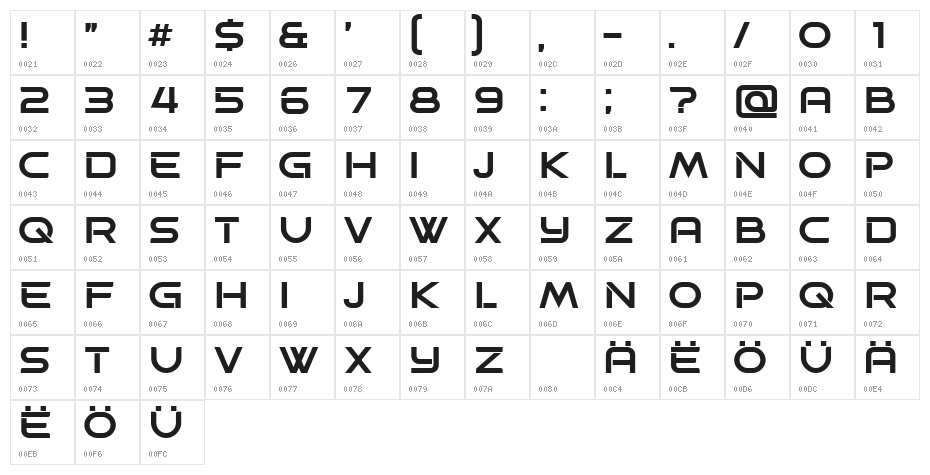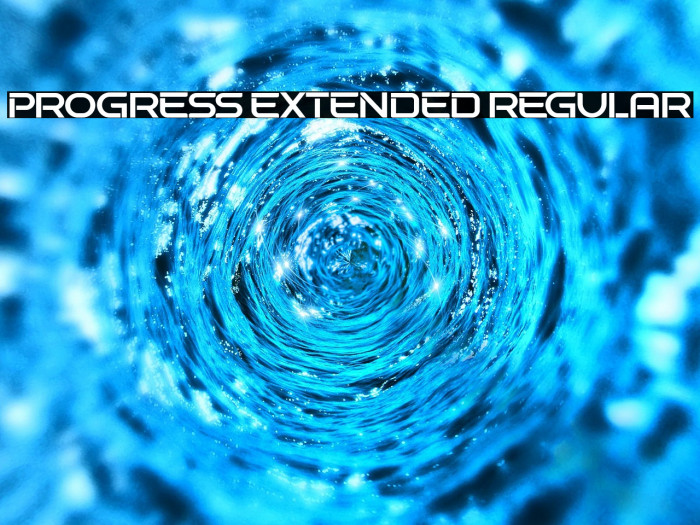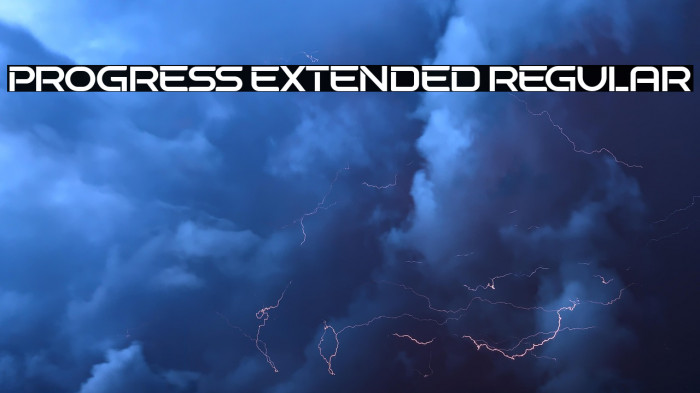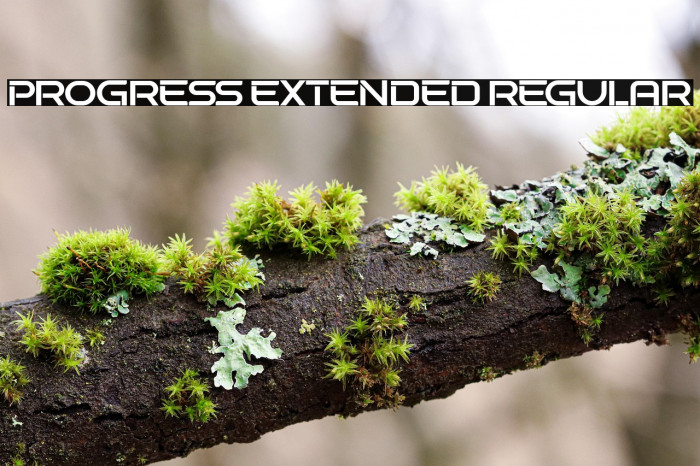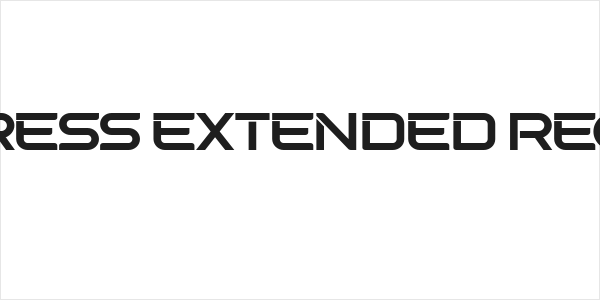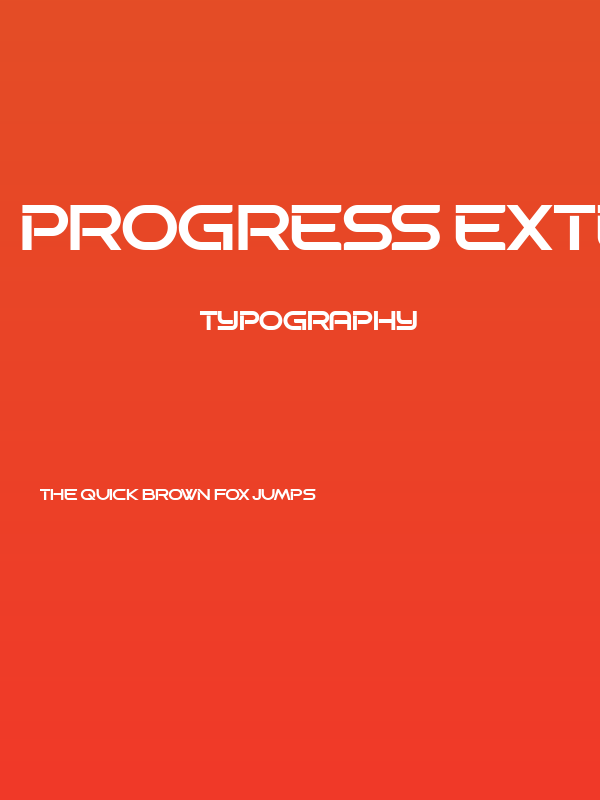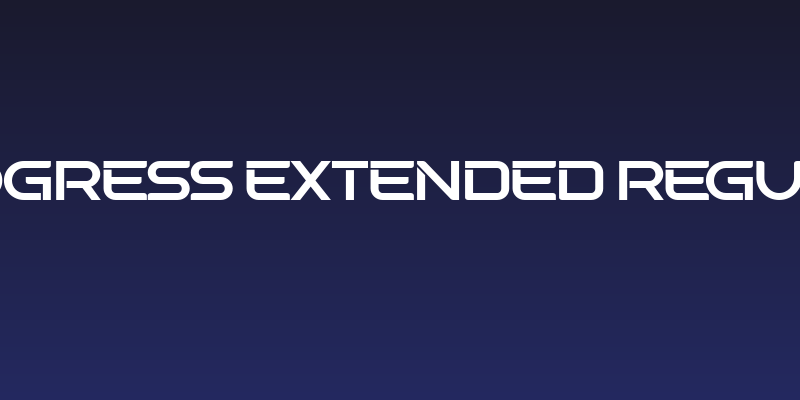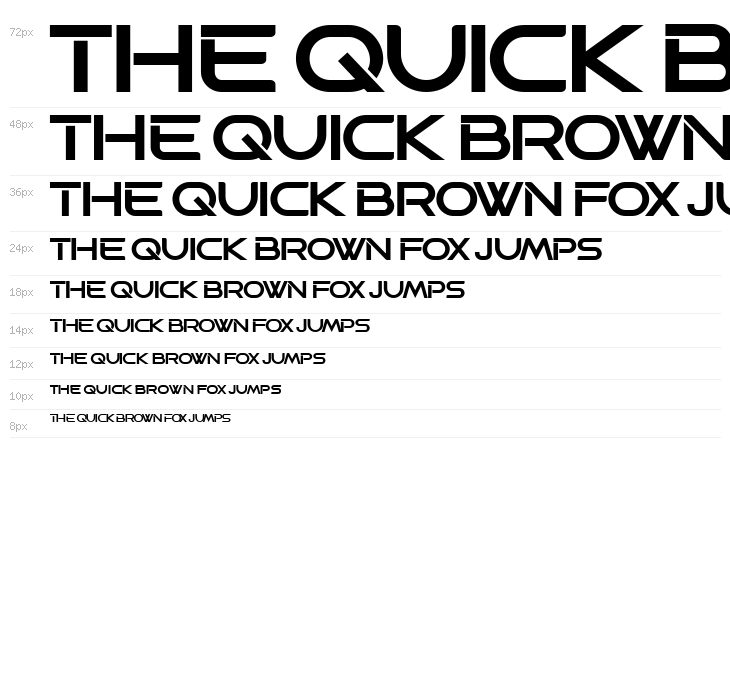
Progress Extended Regular Font
Progress Extended Regular Description
This font features a modern and futuristic design with clean, geometric lines and a distinct angular style. The characters are bold and extended, giving them a strong presence on the page. The uppercase letters are uniform in height, while the lowercase letters maintain a consistent style with slightly rounded edges. The numerals are equally bold and share the same geometric aesthetic, ensuring readability and visual impact. Special characters are designed to match the overall style, providing a cohesive look across all elements. This font is ideal for projects that require a contemporary and dynamic appearance.